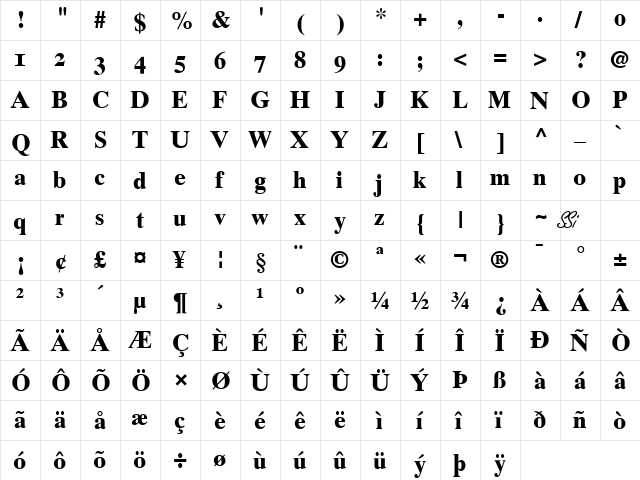
Greco Ten OldStyle SSi Bold Old Style Figures
Design Context for Greco Ten OldStyle SSi Typeface
Greco Ten OldStyle SSi carries the refined structure of traditional serif typography, with bracketed terminals and considered proportions that communicate credibility and craft. Its bold stroke weight gives it real presence on the page.
Pro Tip: Set Greco Ten OldStyle SSi with slightly loose tracking in headlines to let each letterform's detail read clearly at display sizes.